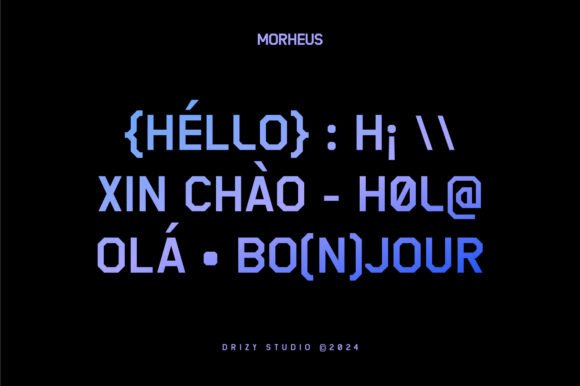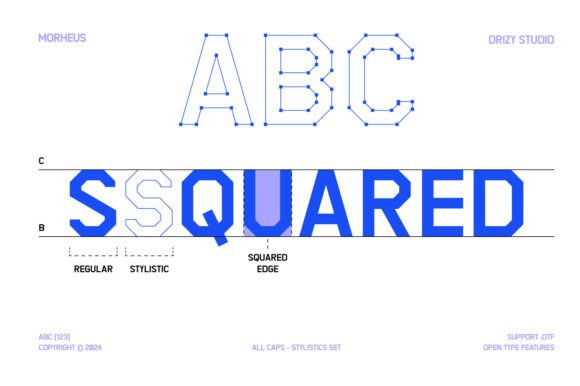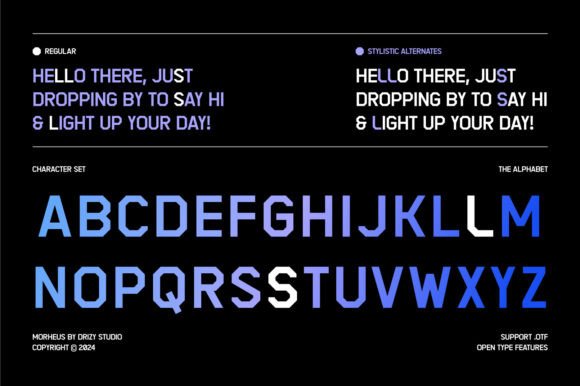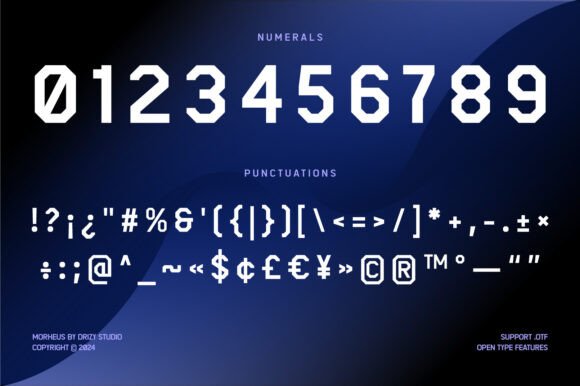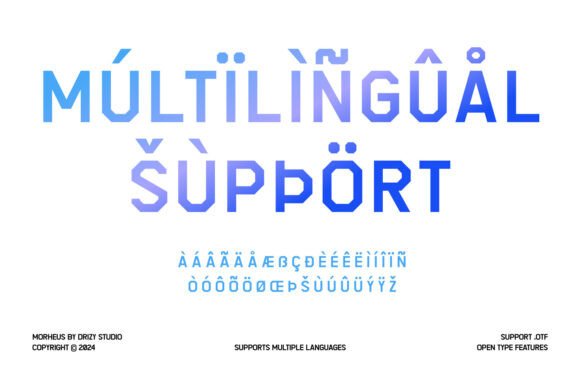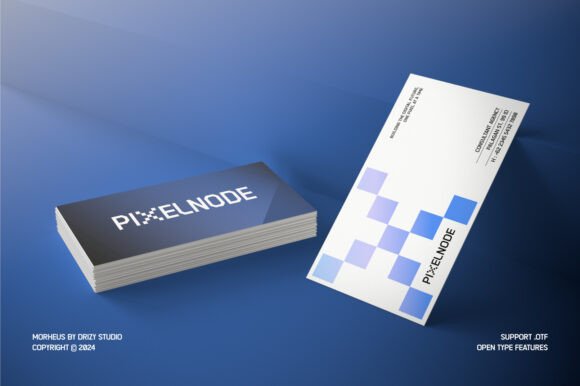
Introduction to Morheus Font
Have you ever found yourself staring at a blank canvas, struggling to bring your creative vision to life? For designers, this moment is all too familiar. It’s the moment when the perfect font can make all the difference between a mediocre design and a masterpiece. Enter Morheus Font, a sleek and contemporary typeface designed to elevate your creative project to new heights.
With its squared edges and clean lines, Morheus Font exudes a perfect balance of sophistication and minimalism, making it an ideal choice for UI/UX designs and visual identity projects. Whether you’re crafting a tech-savvy app interface or creating polished web layouts, Morheus Font delivers a professional yet approachable aesthetic that’s sure to impress.
Key Features of Morheus Font
- High-quality design resource with a wide range of creative project applications, including digital art, graphic design, and web development.
- Unique, futuristic design aesthetic with a transparent background, making it perfect for use on any background or design element.
- Available in multiple font sizes and resolutions, ensuring optimal display on various devices and screens.
- Designed to be highly legible and readable, even at small font sizes, making it an ideal choice for creative projects that require clear typography.
Honest Review: Morheus Font
I recently had the chance to work with the Morheus Font, and I must say it’s been a great experience. As a designer, I’m always on the lookout for high-quality design resources that can elevate my creative projects. The Morheus Font definitely delivers.
Here are some things that work well with the Morheus Font:
- ✨ Unique style: The font has a distinct and modern feel to it, making it perfect for any project that needs a touch of sophistication.
- ✨ High-quality glyphs: The font is well-crafted, with clear and legible glyphs that make it easy to read.
- ✨ Transparent background: This allows for a clean and crisp design, perfect for any creative project.
- ⚠️ Limited font sizes: While the font is great for most design needs, I found that it struggled with very small font sizes, becoming difficult to read.
- ⚠️ Not ideal for body text: Due to its unique style, the Morheus Font may not be the best choice for large blocks of body text.
The Morheus Font is perfect for creating logos, branding materials, and marketing materials. Its high-quality design makes it ideal for creative projects that require a professional touch.
Tips for Getting the Most Out of Morheus Font
To get the most out of the Morheus Font, experiment with different font sizes, colors, and styles to create visually appealing designs. You can also pair it with other design resources to create a unique and eye-catching look.